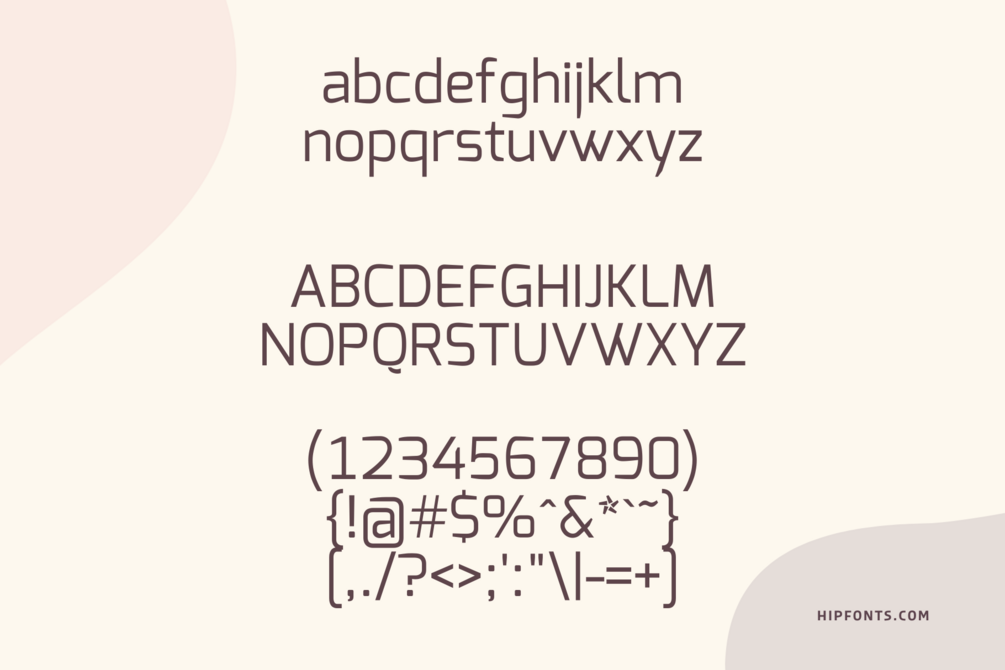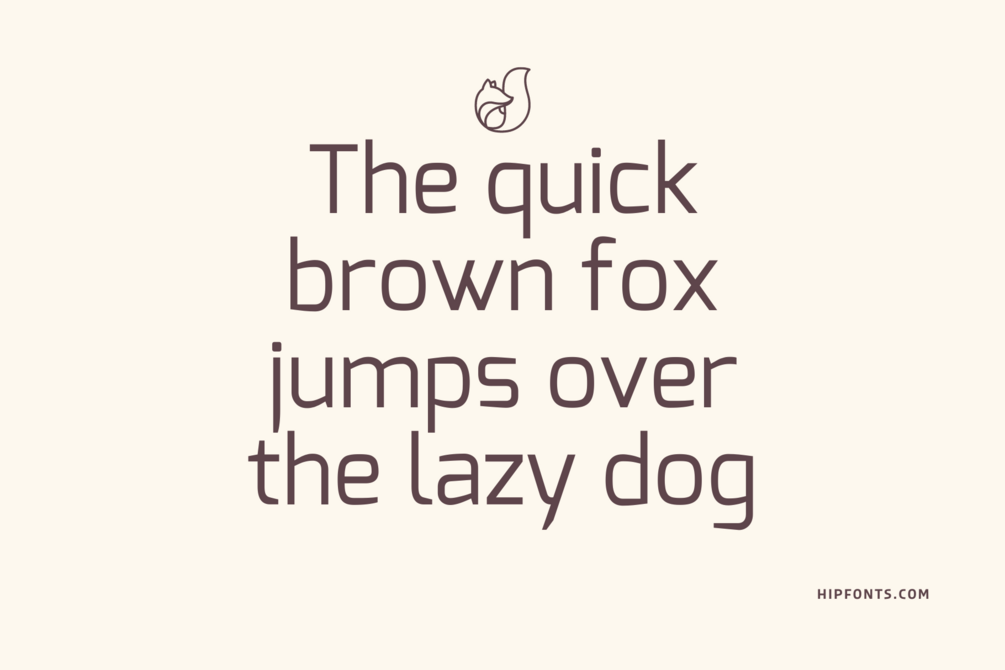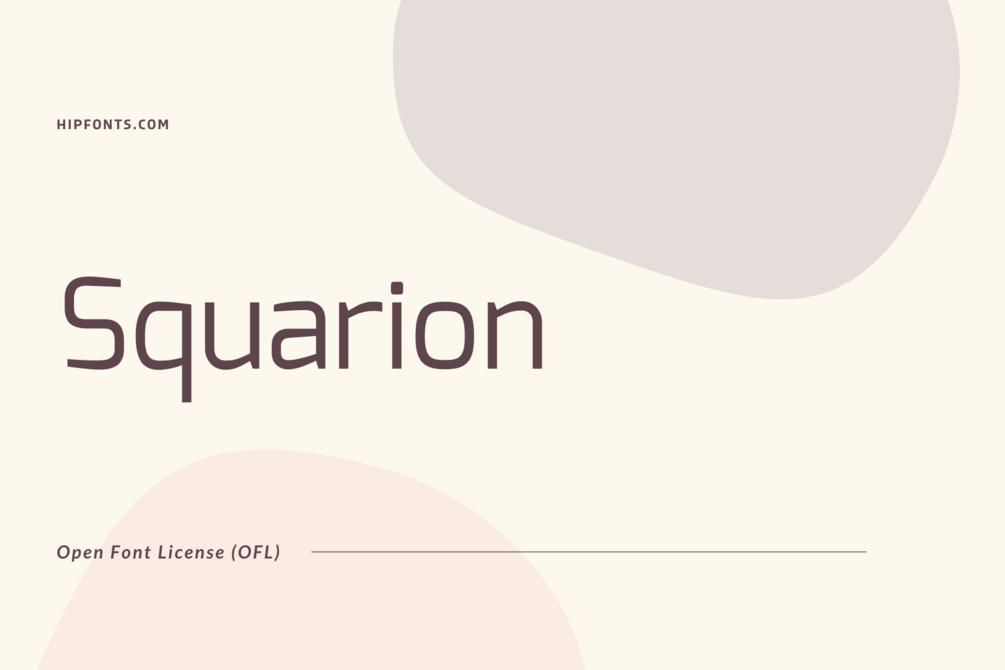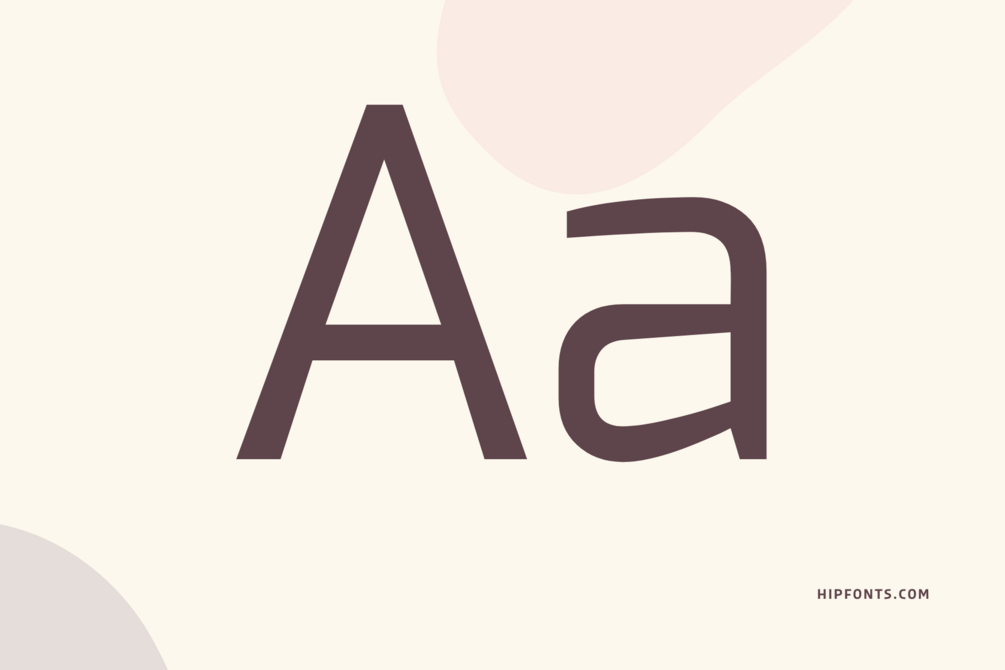
Squarion
Squarion is a modern and geometric font that embodies a sense of stability and order. It's designed by Natanael Gama, inspired by the Exo 1 font.
Its clean lines and squared-off letterforms create a sleek and minimalist aesthetic that is both visually pleasing and highly functional. Squarion's simplicity and legibility make it an excellent choice for a wide range of design projects, from branding and editorial design to user interfaces and web design.
This font's uniform strokes and precise geometry give it a polished and professional look, making it suitable for corporate branding and visual identities. It also works well in digital applications, ensuring clarity and readability across various devices and screen resolutions. Squarion's versatility extends to both large display sizes and small body text, offering flexibility in typographic hierarchies.